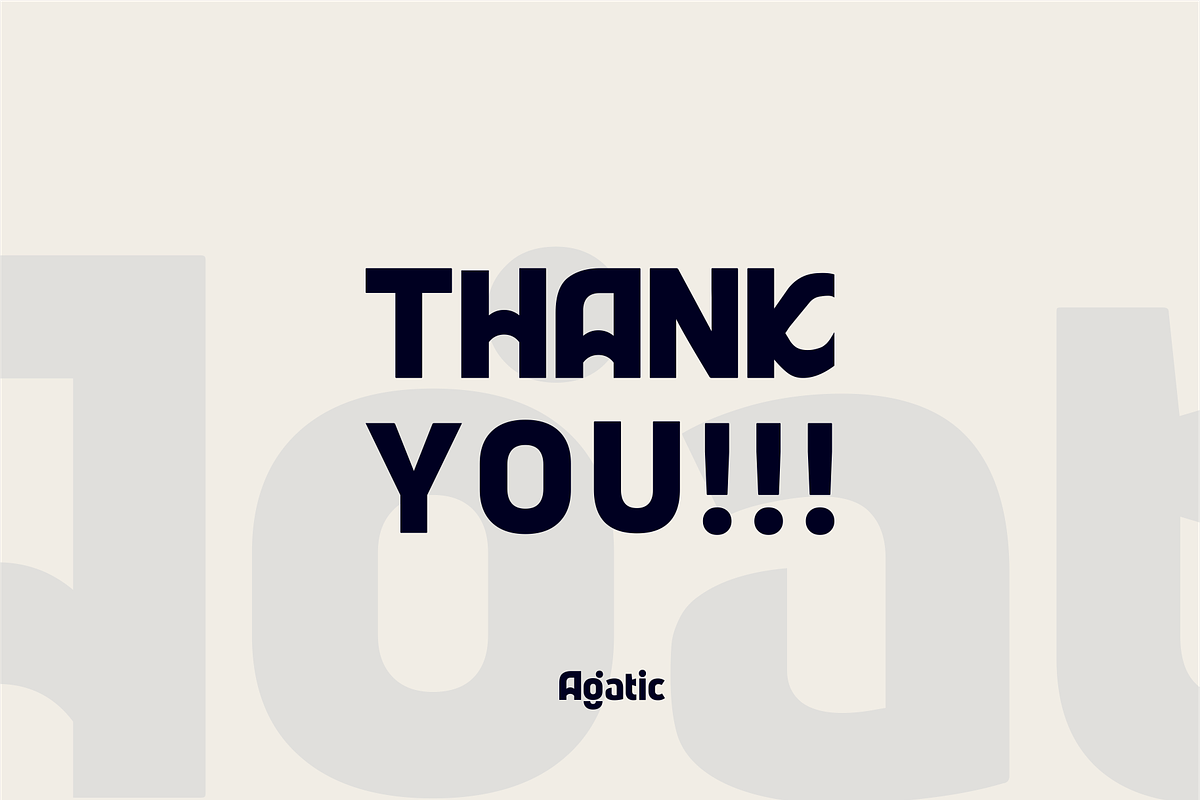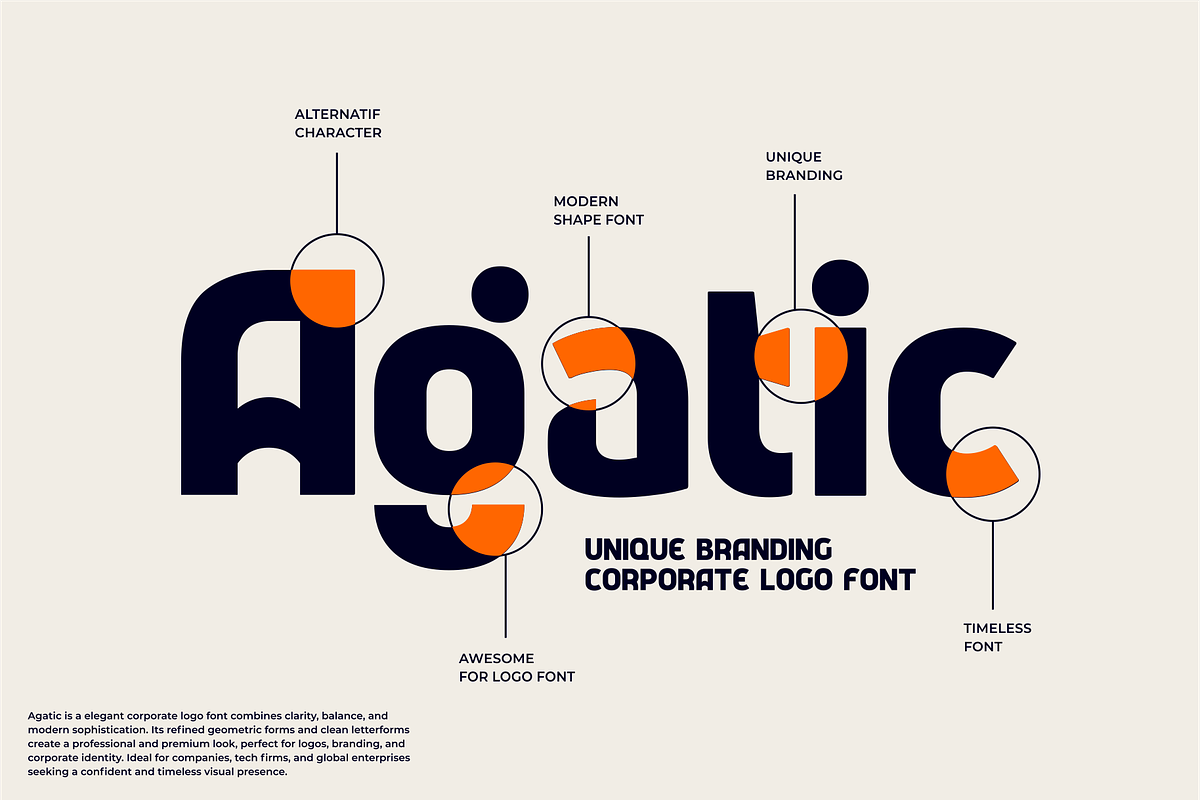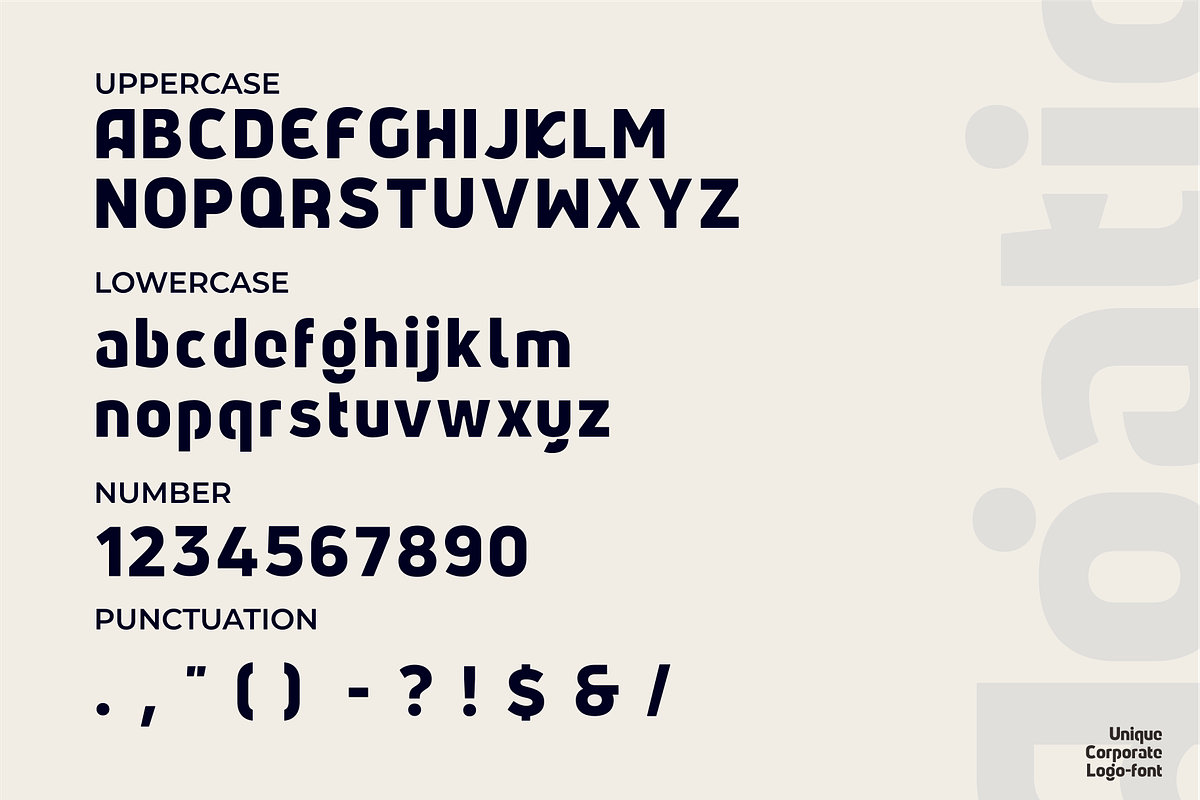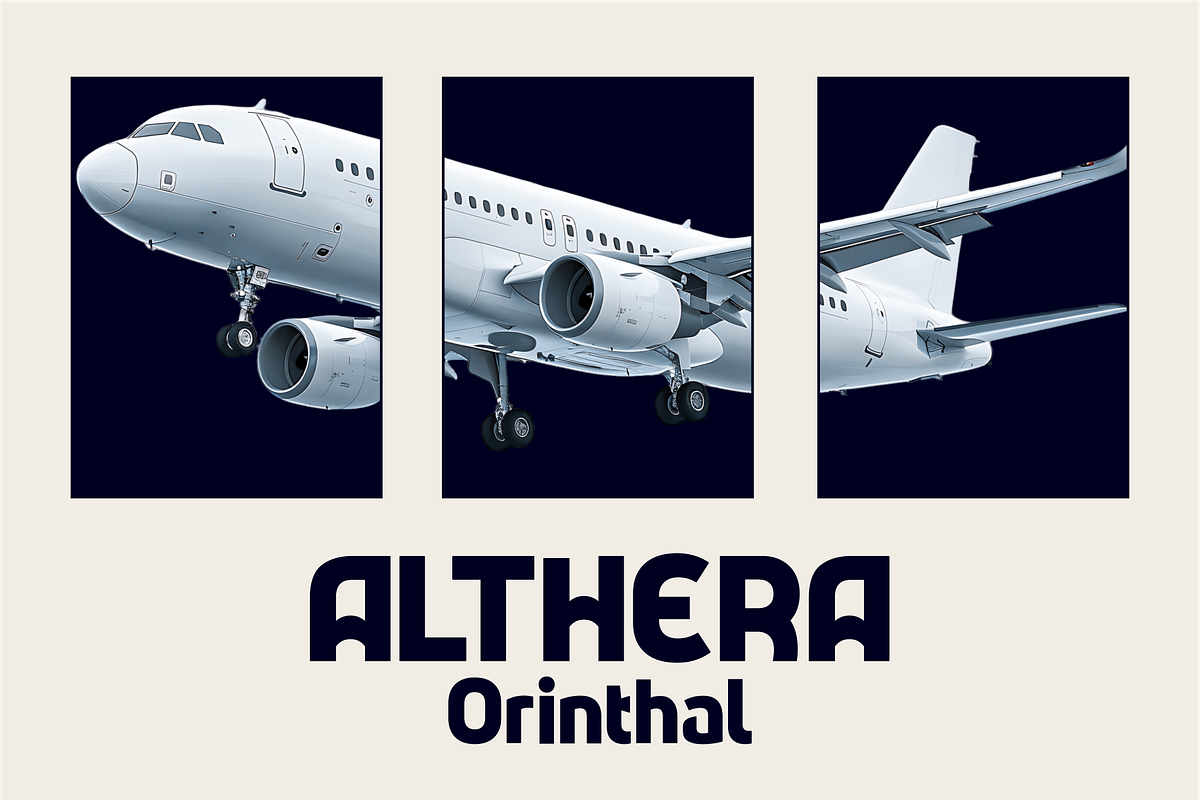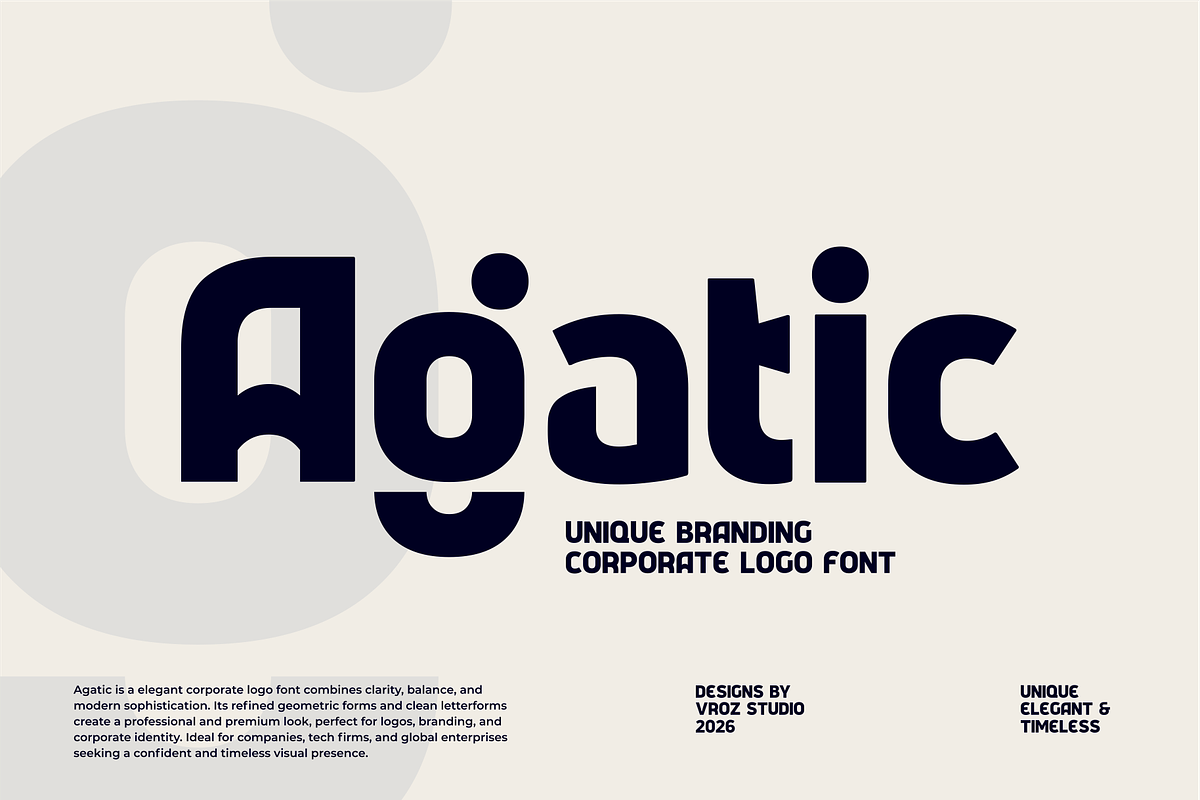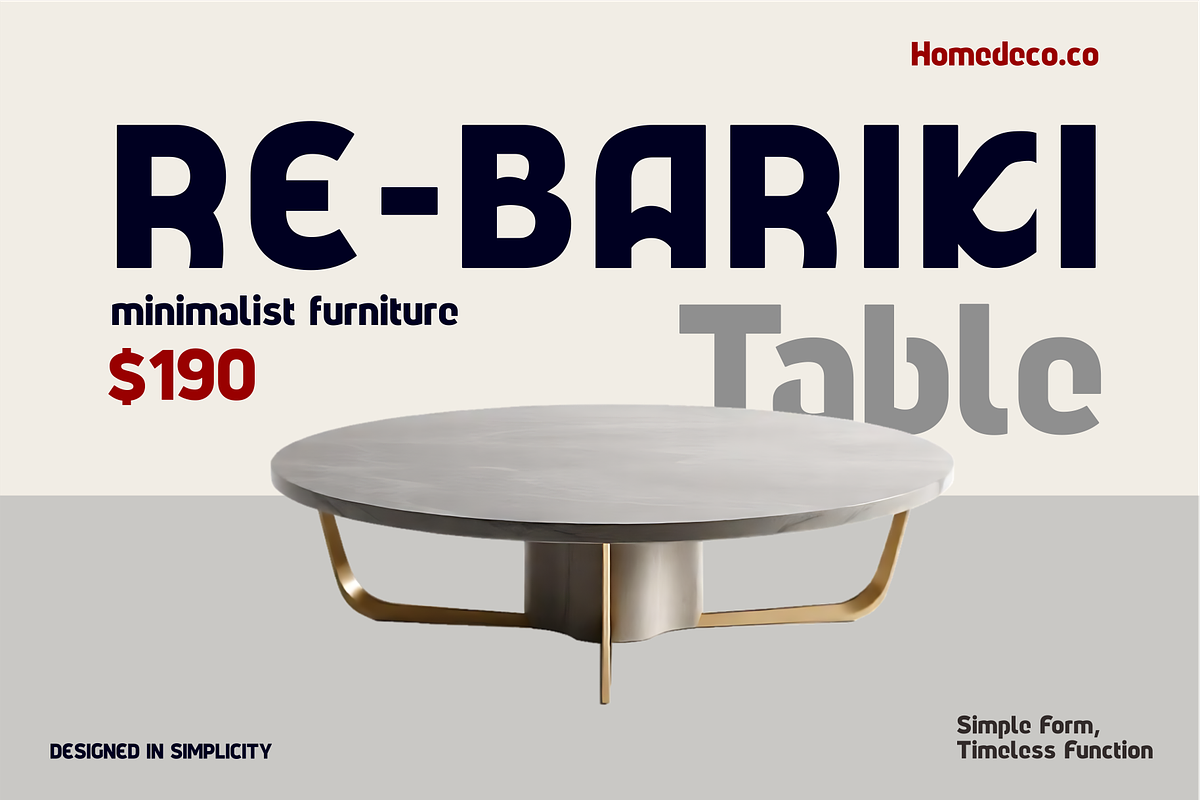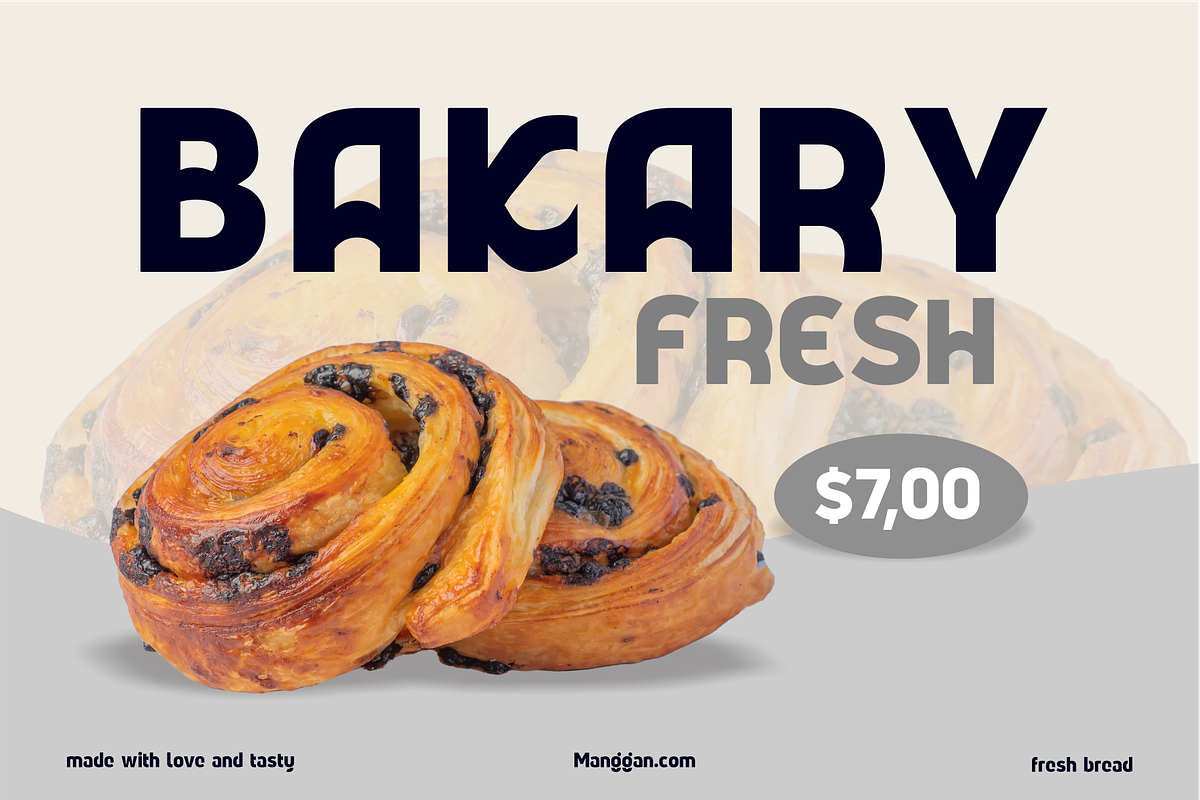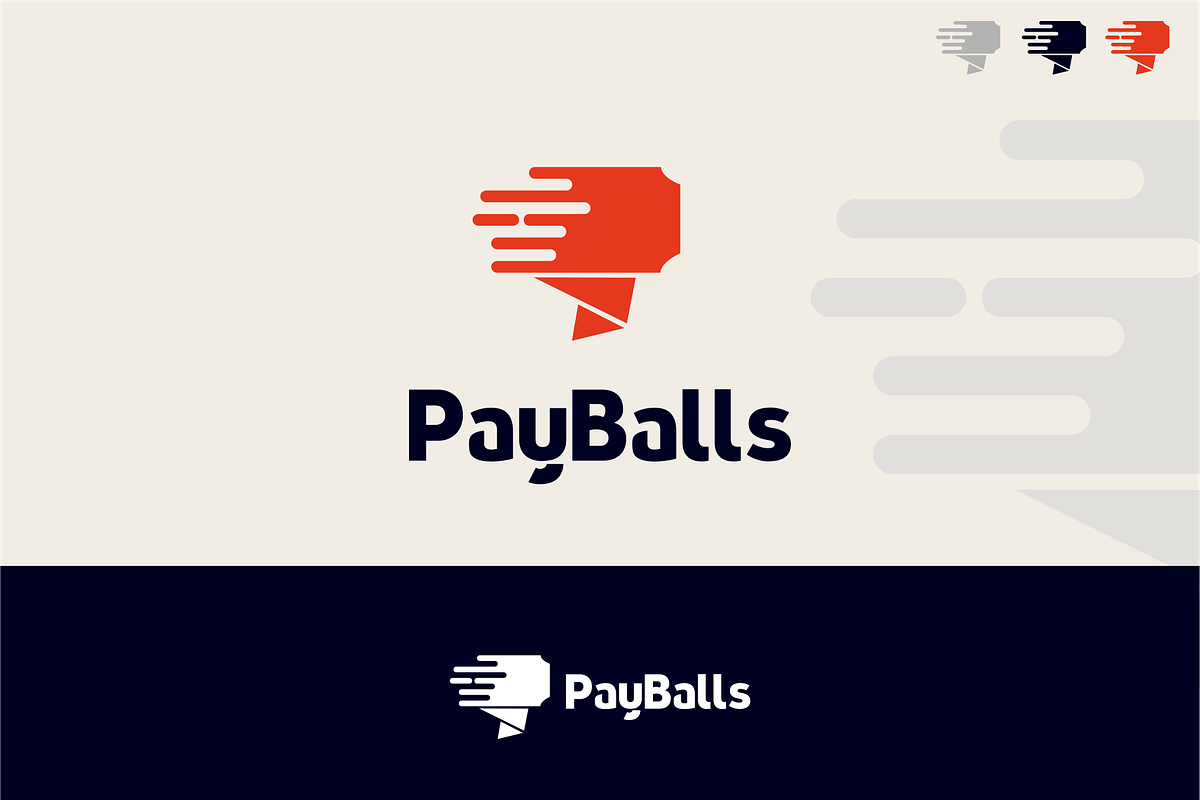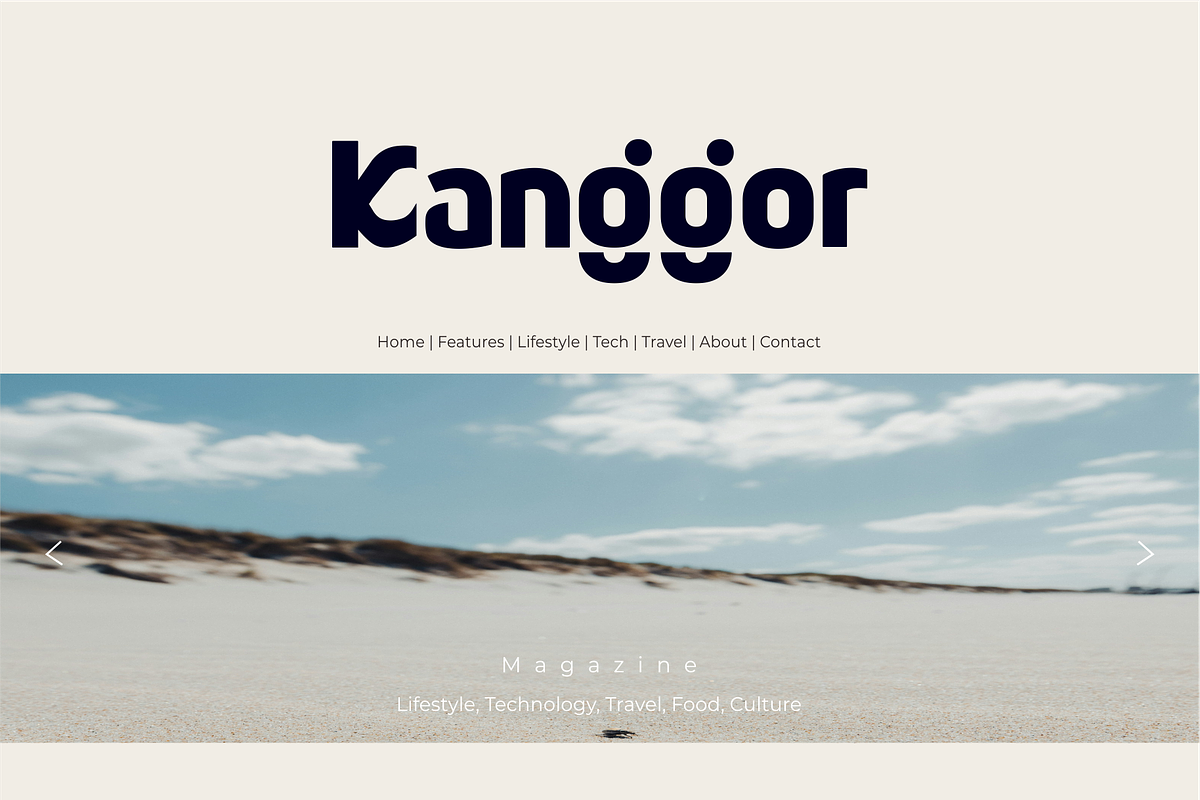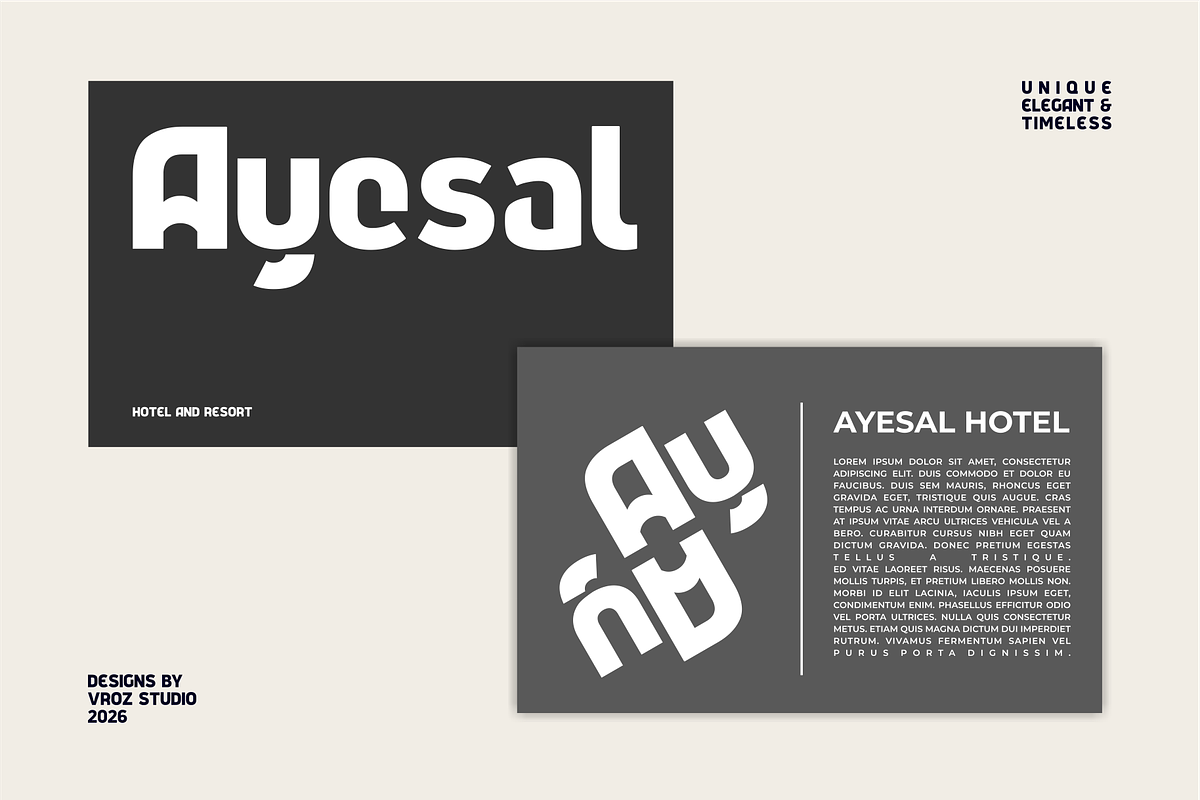
Agatic - Unique logo Corporate Font
Agatic – Unique Branding Corporate Logo Font
Agatic is a refined geometric sans-serif typeface crafted for premium branding and sophisticated corporate identities. Designed with a focus on balance, precision, and timeless elegance, Agatic delivers a confident visual presence that feels modern yet enduring.
Built with clarity and consistency in mind, Agatic delivers strong readability while maintaining a distinctive geometric character. Its minimalist yet bold design makes it ideal for modern brands, creative studios, technology companies, and businesses seeking a timeless and confident visual identity across print and digital media.
With extensive multilingual support and carefully developed ligatures and alternates, Agatic ensures consistency and excellence across global applications—making it a reliable choice for brands that value clarity, refinement, and prestige.
- Complete Character Set: Uppercase, lowercase, numerals, and punctuation
Strengthen your brand foundation with Agatic – the geometric logo font made for modern identity design.